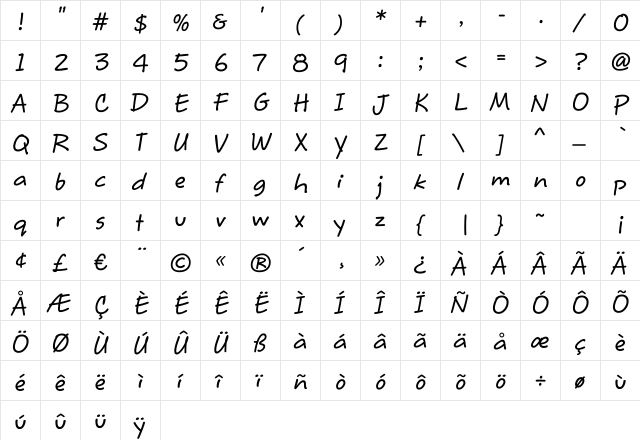
MaritaTextMediumHMK Regular
Design Context for MaritaTextMediumHMK Typeface
MaritaTextMediumHMK takes a measured approach to typography — its balanced proportions and neutral character make it a reliable workhorse for both digital and print work.
Pro Tip: Use MaritaTextMediumHMK in both headline and body roles to test its range before committing to a single application.